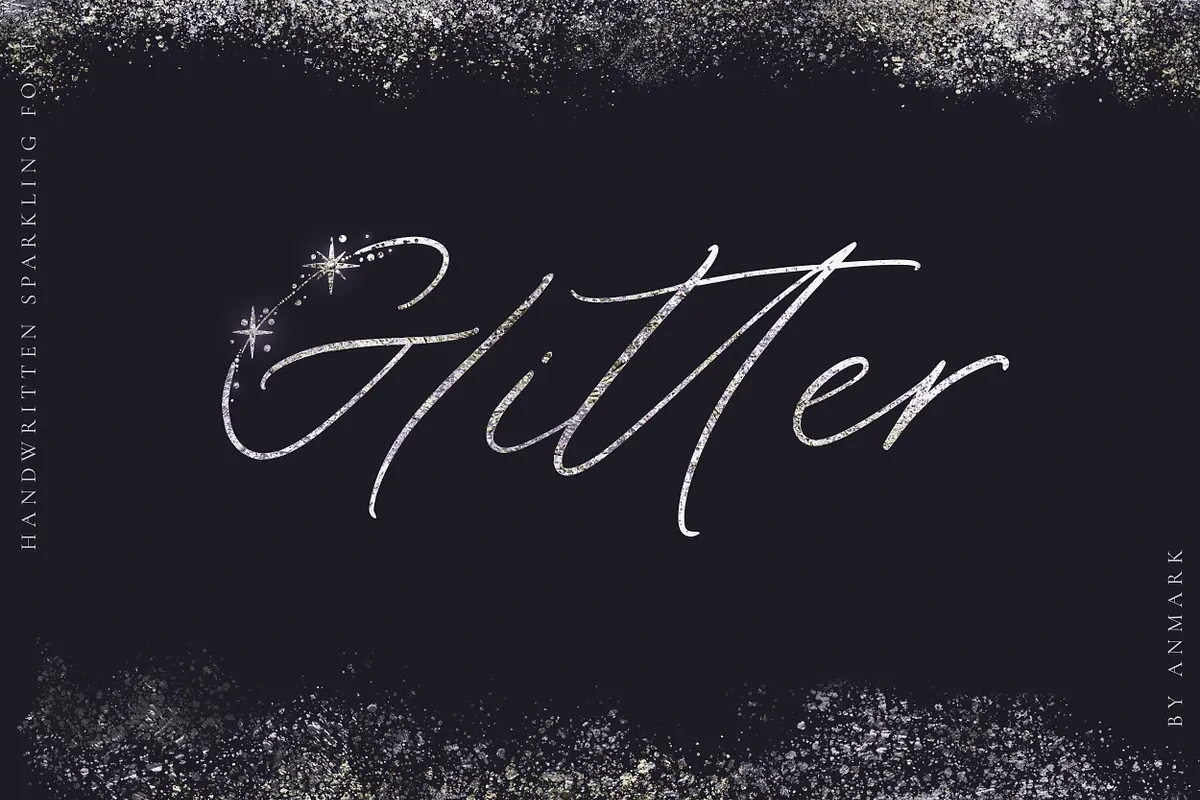
The Glitter. Festive Font with Sparks Free Download is a dazzling and joyful typeface designed to light up your celebrations. With sparkly accents and a whimsical flair, this font is perfect for holiday cards, party invitations, New Year graphics, social media posts, and any project that needs a festive, sparkling touch.
Its decorative style captures the excitement of special occasions, making your text pop with energy and charm. Glitter includes a full set of uppercase and lowercase letters, punctuation, numbers, and multilingual support—giving you the flexibility to create eye-catching designs with ease.